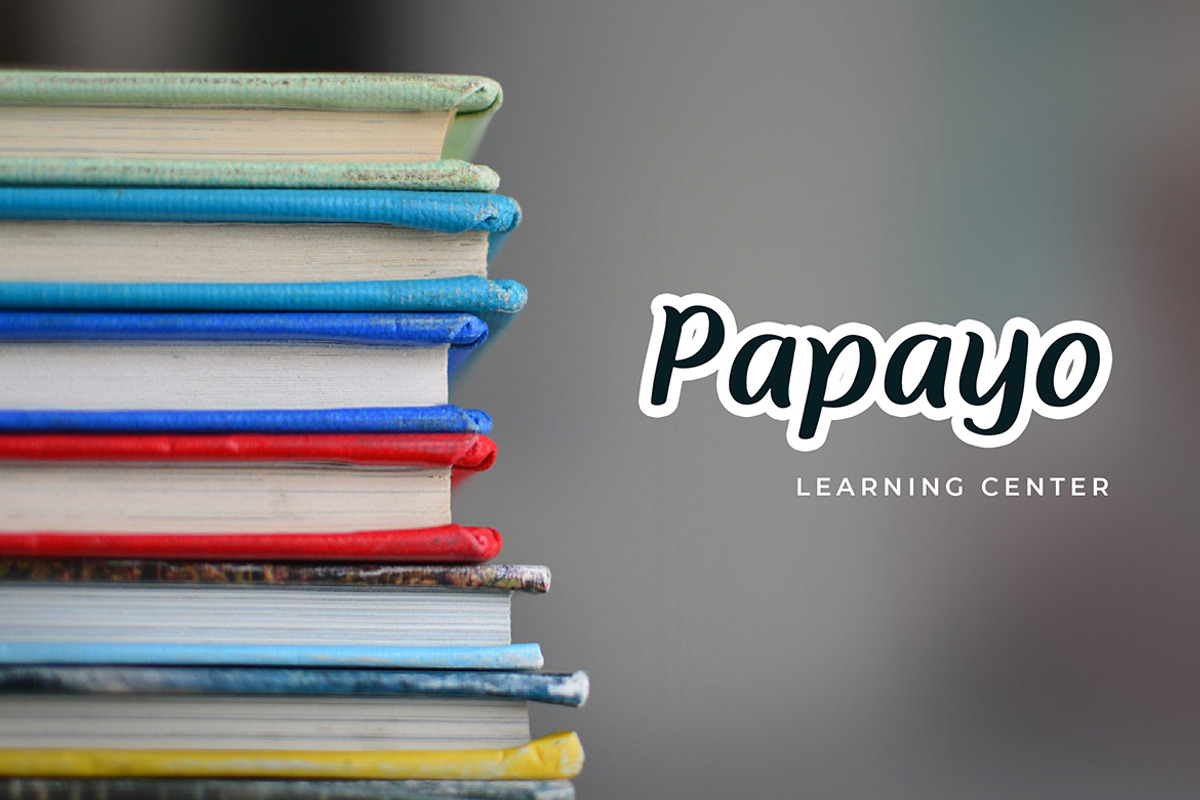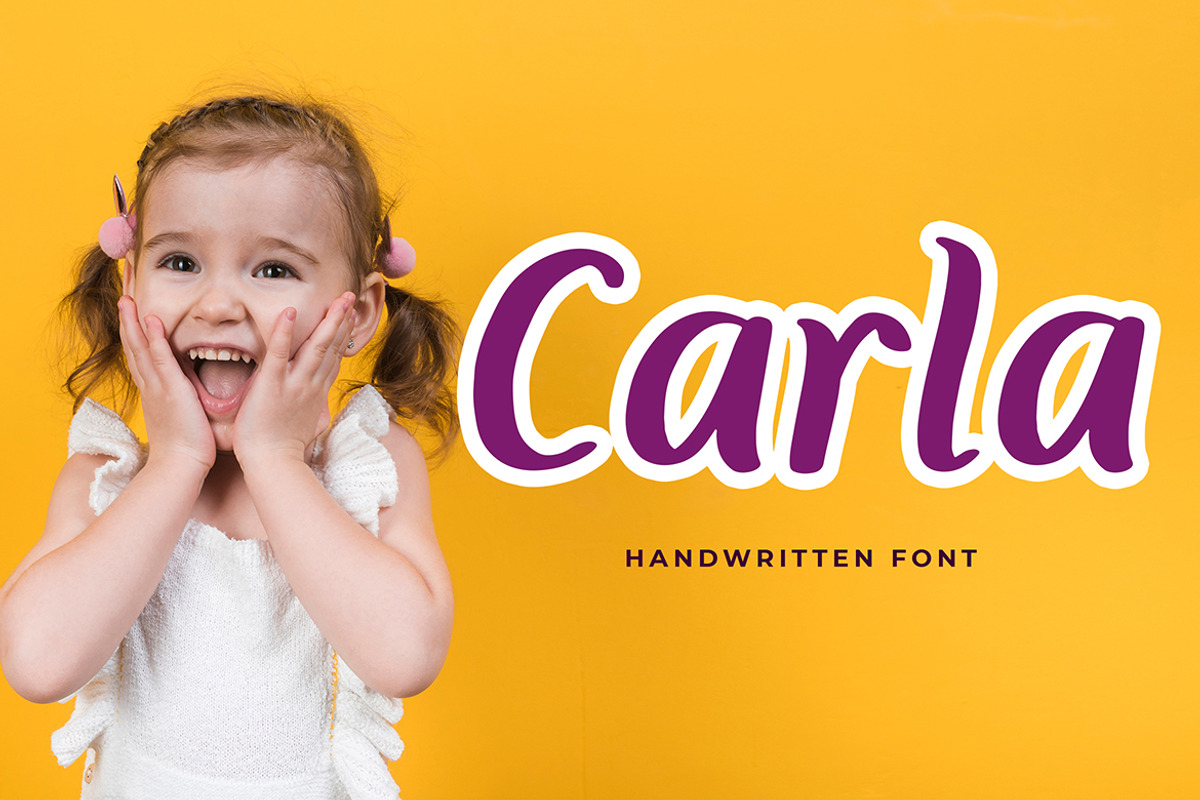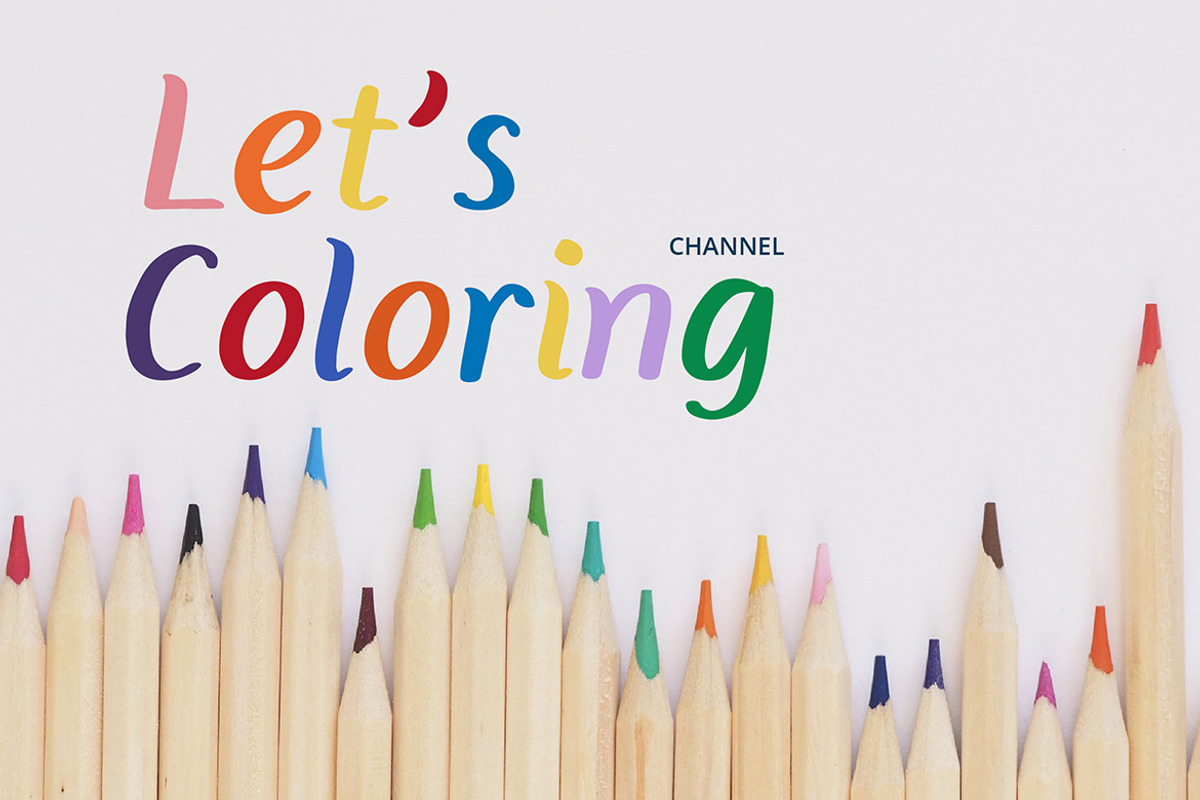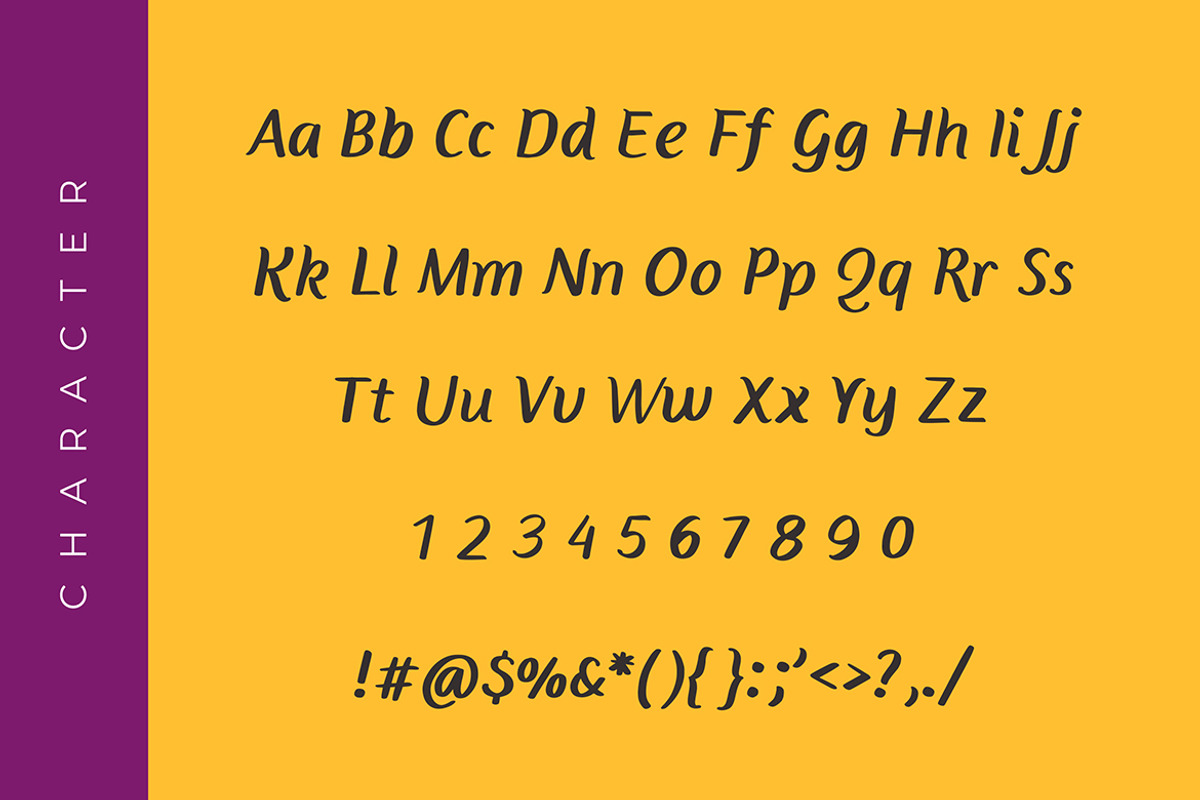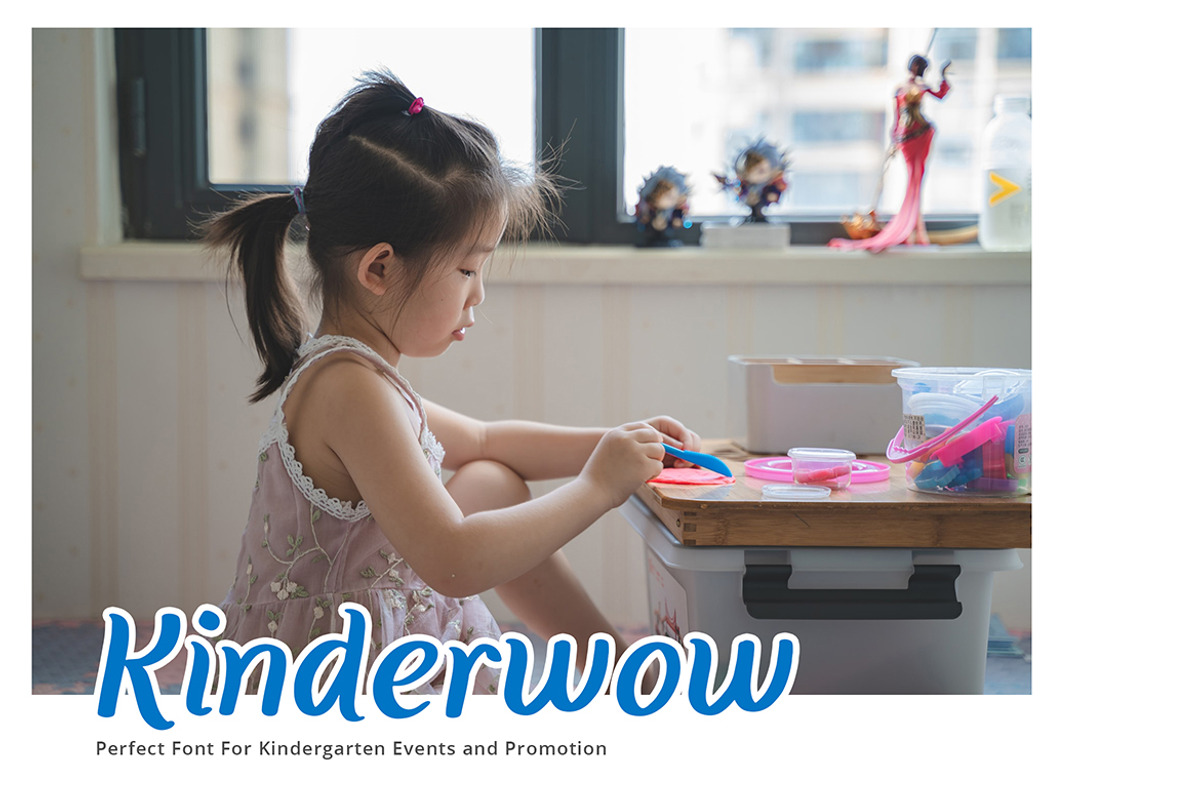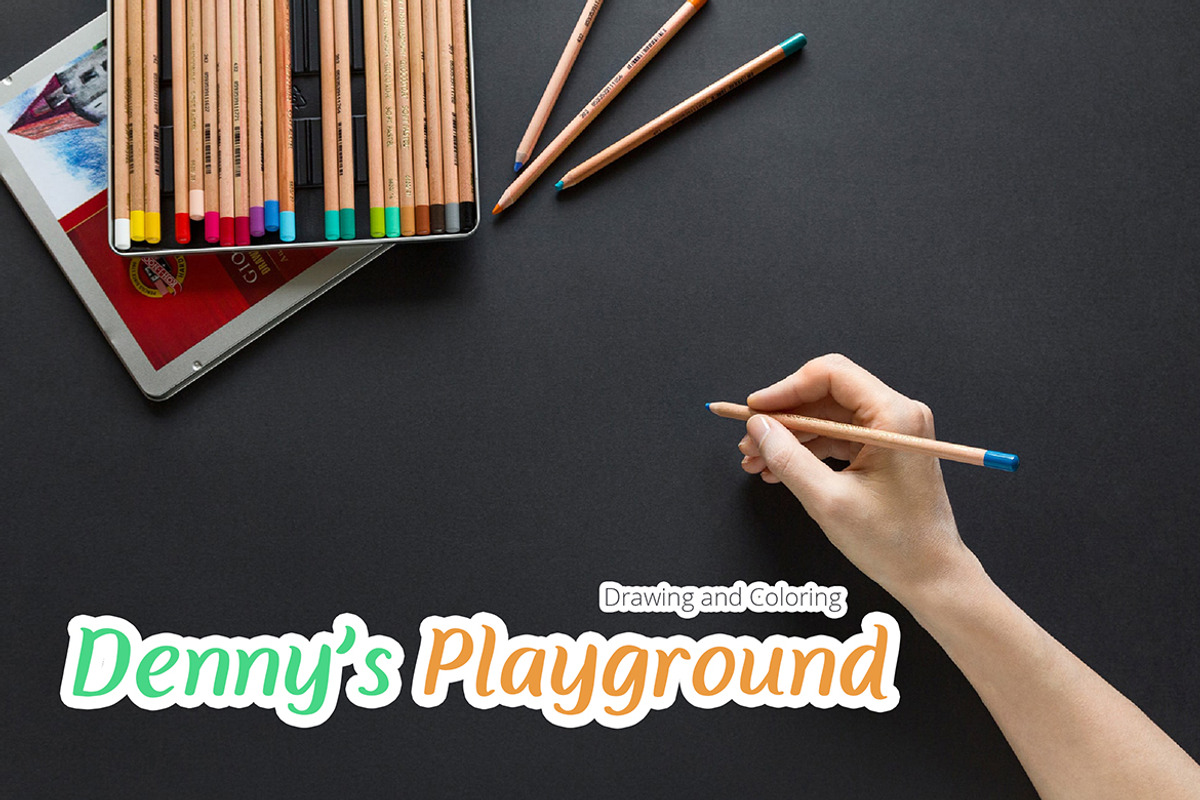
Carla Playful Handwritten Font
Carla is playful modern handwritten font. This font perfect for branding projects, logo, book cover design, tshirt designs, social media posts, advertisements, product packaging, product designs, label, watermark, invitation, stationery and any projects
Carla Playful Handwritten Font by Formatika Studio fits naturally into Branding, posters, packaging, typography.